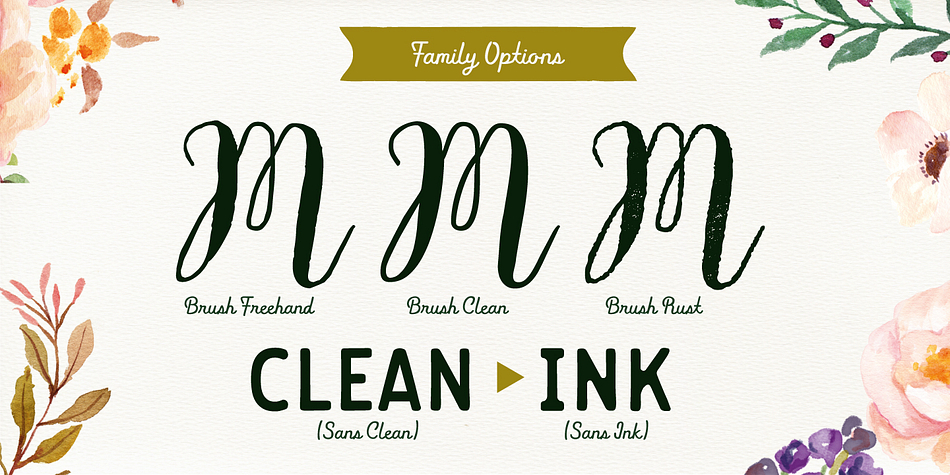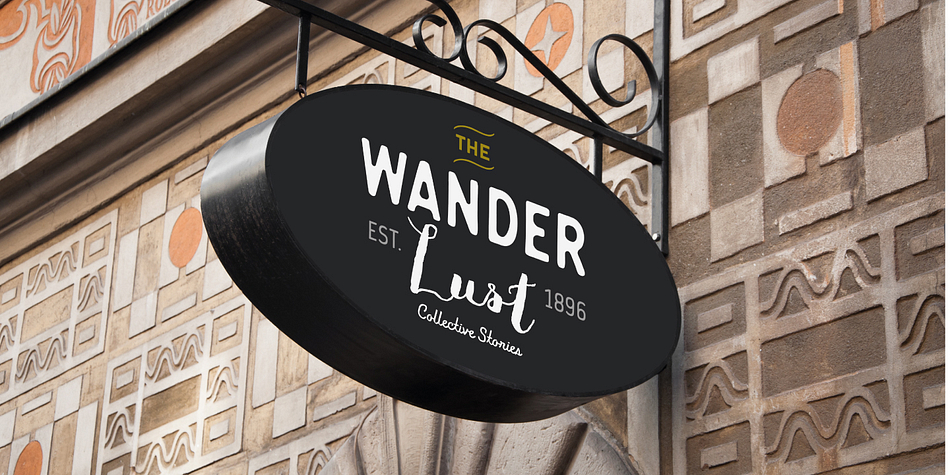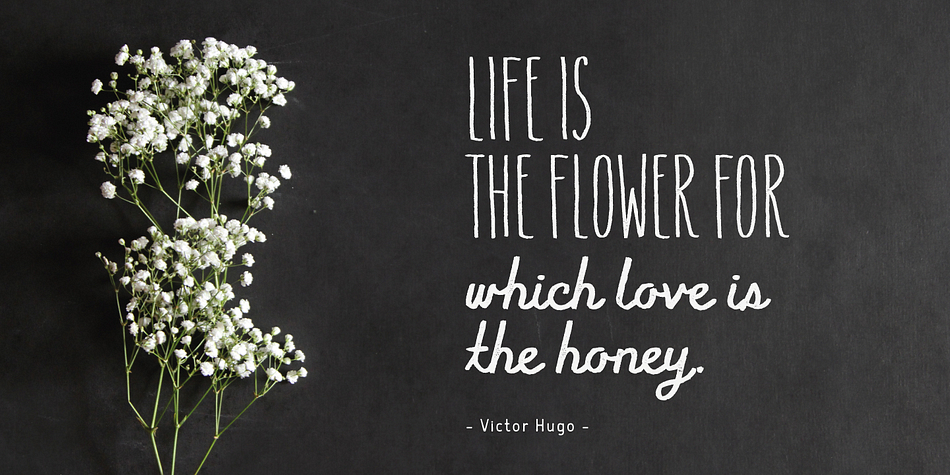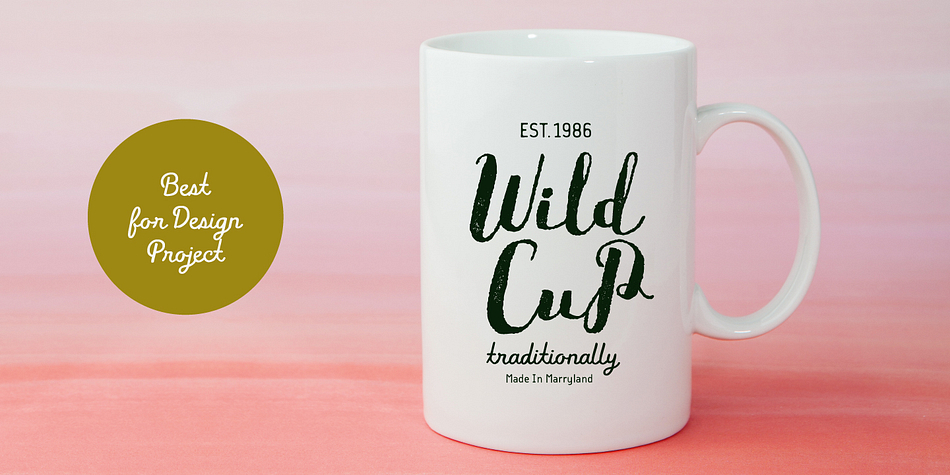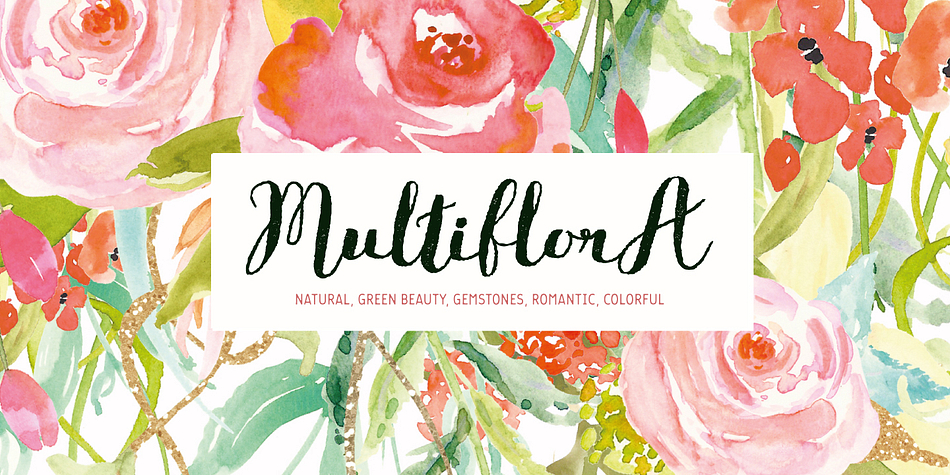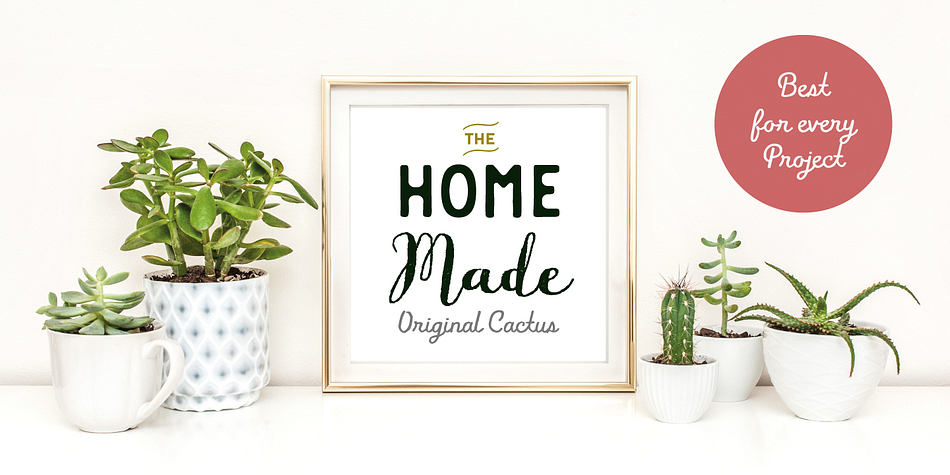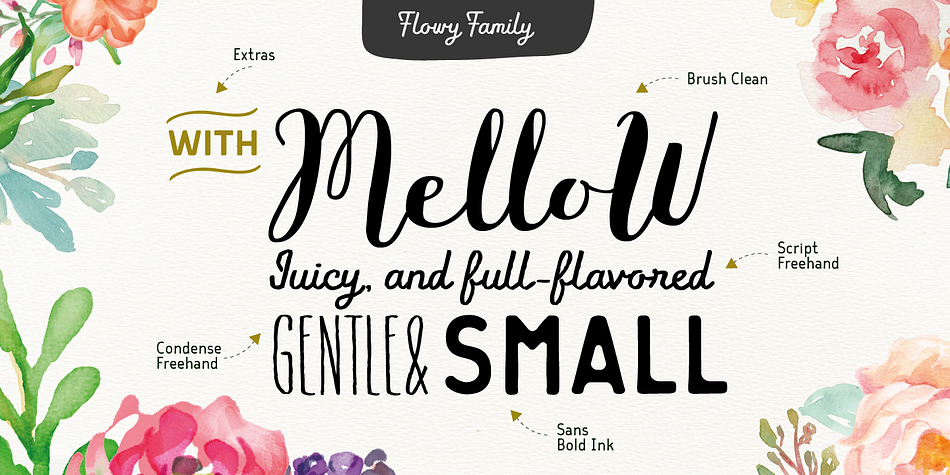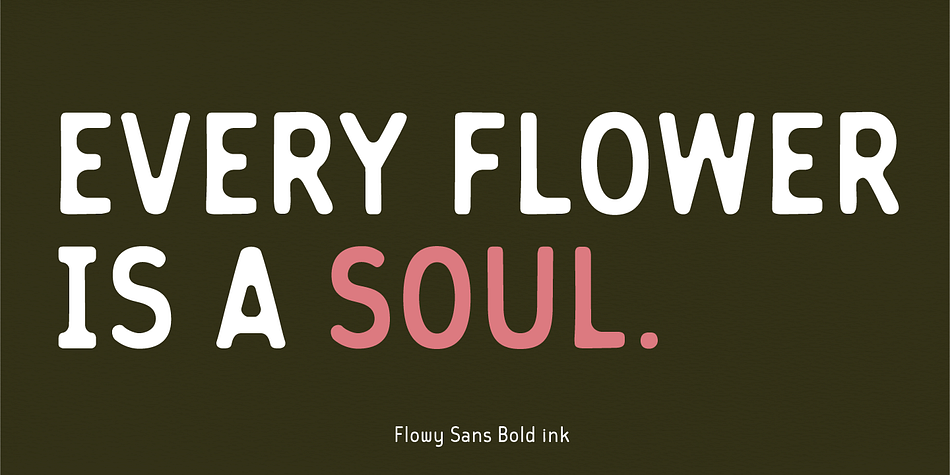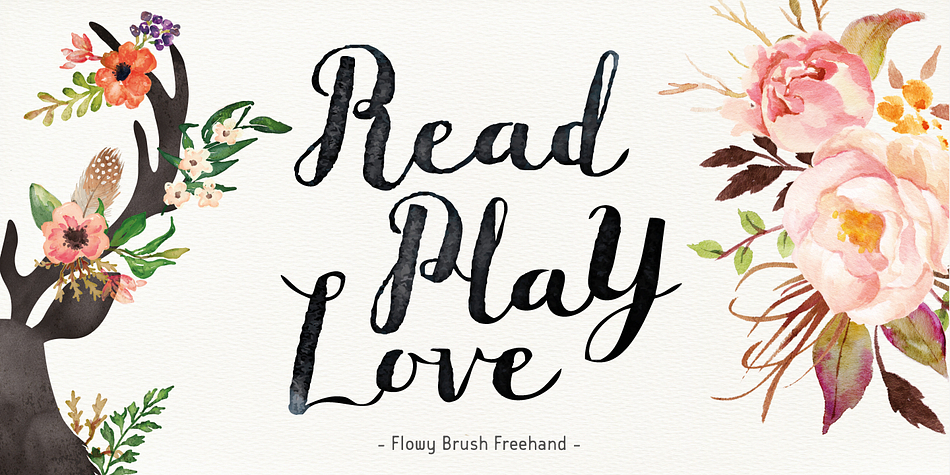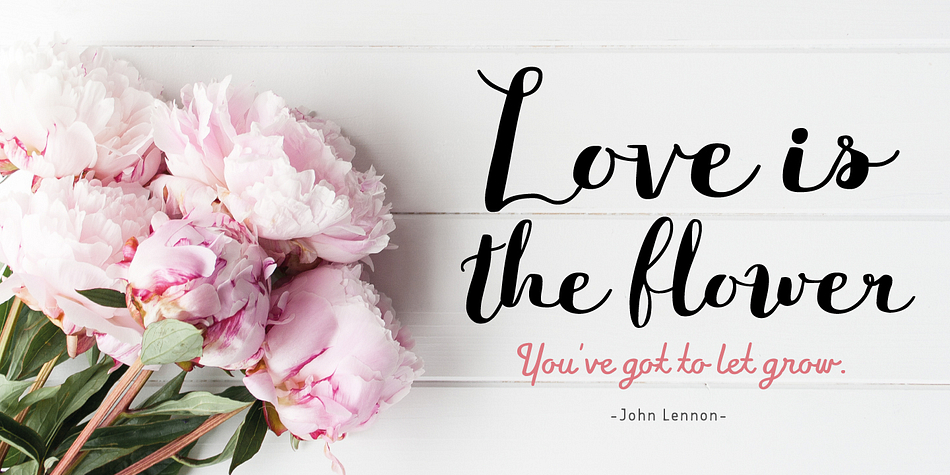
Flowy is a multiple classification font family. This typeface has twenty-nine styles and was published by Typesketchbook.
Flowy is a romantic and delicate type, made up of four sub-families: Brush, Script, Condensed and Sans.
The different styles imitate freehand writing using different tools. In these families, you can choose the original version which embodies freehand styles, the Clean option which offers a clean-cut edge and is more suitable for corporate assignments, or Rust which changes the texture. Meanwhile, two options, Clean and Ink, come with the Sans type.
The complete family has 29 individual typefaces that serve your projects every purpose.